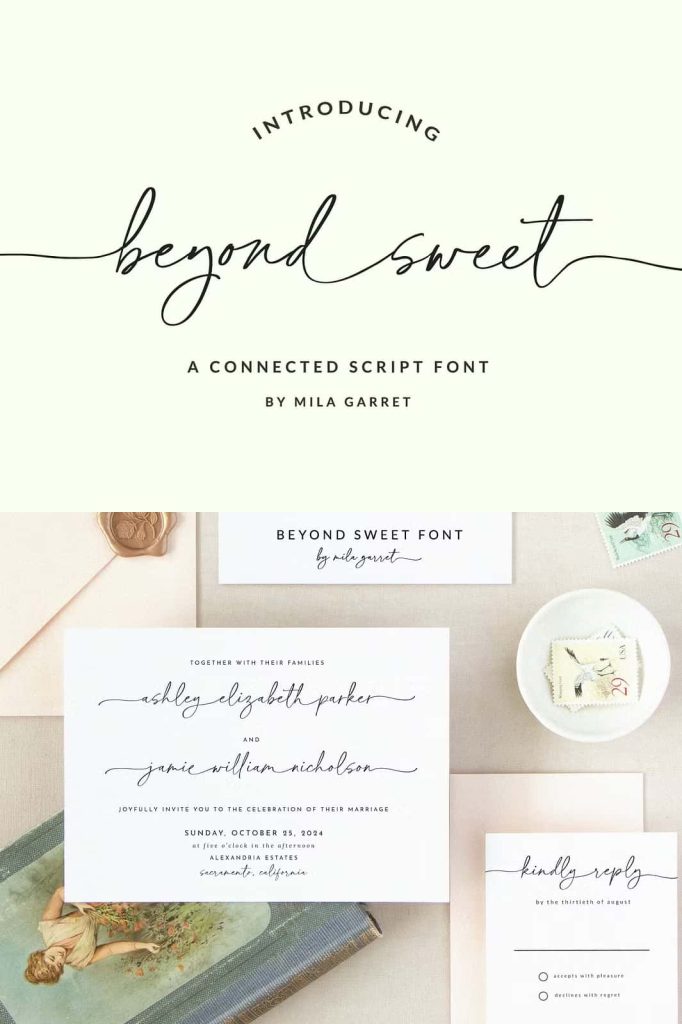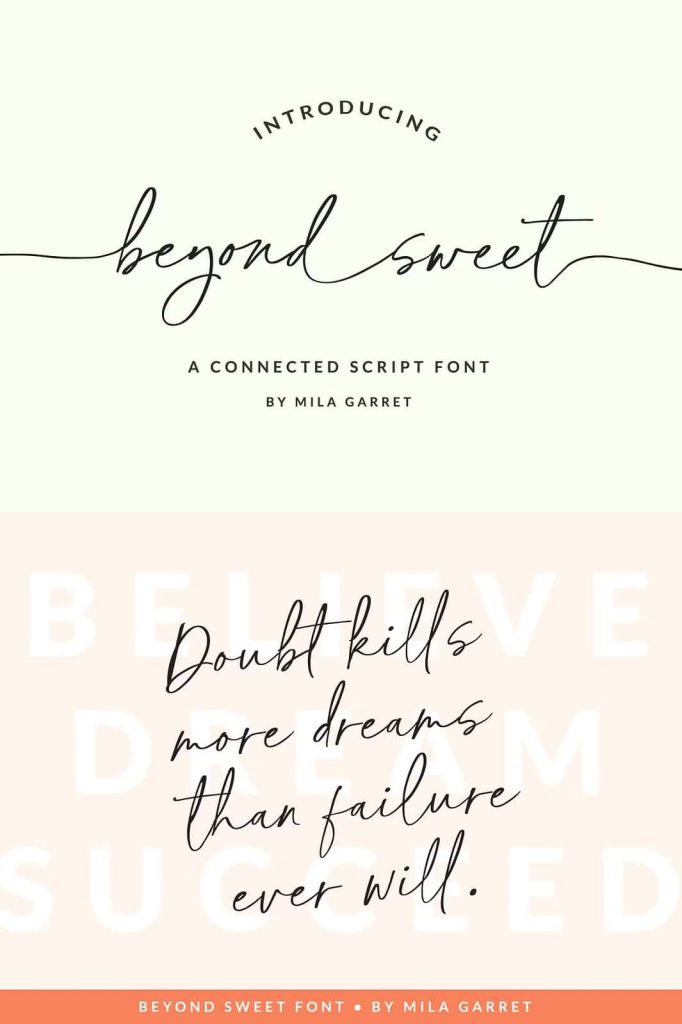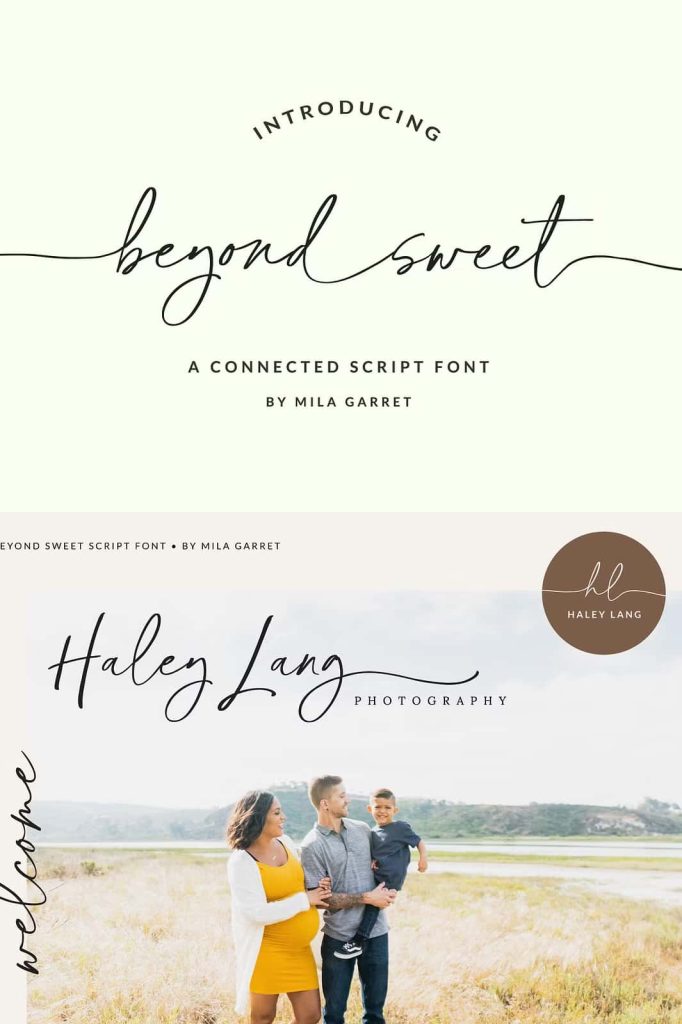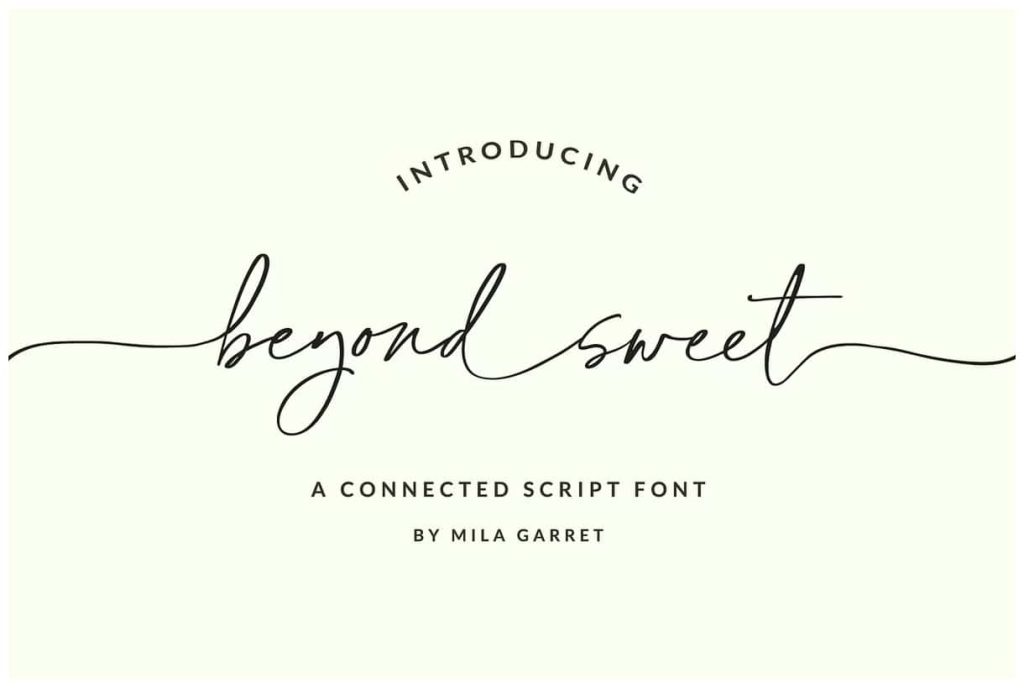
BeyondSweet Handwritten Wedding FontleastedJune 4, 2025Fonts Meet Beyond Sweet, a connected, handwriting script font perfect for wedding stationery Download